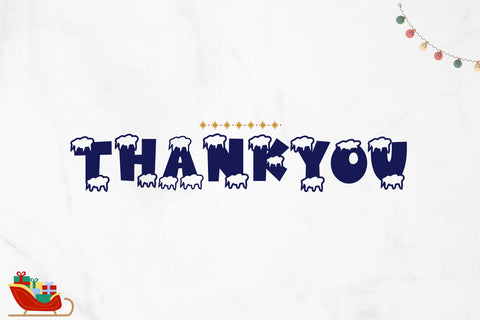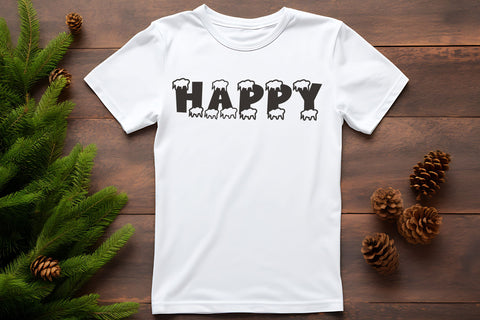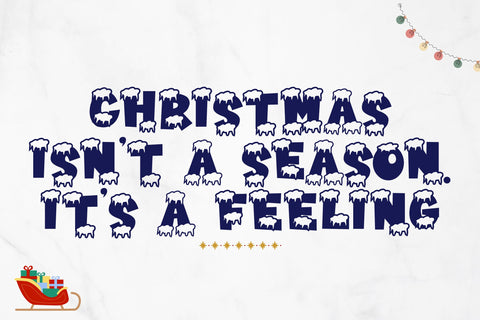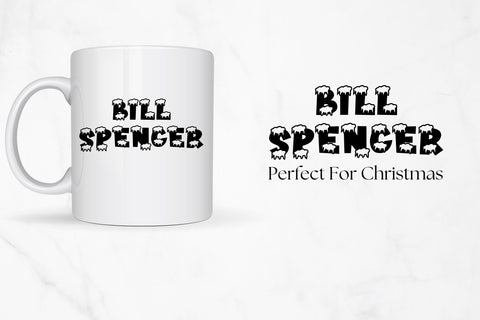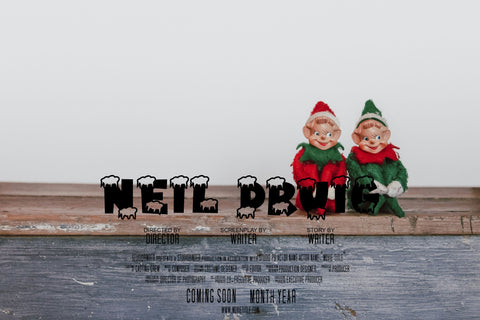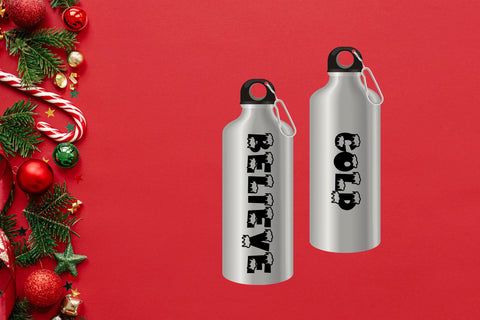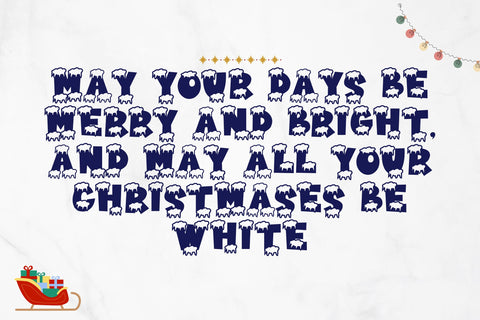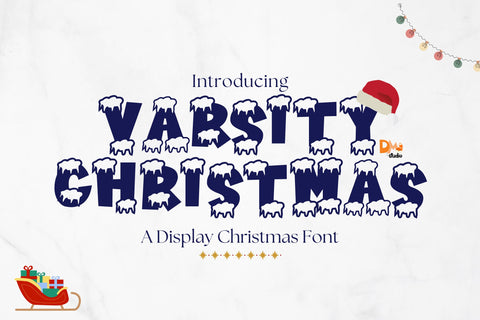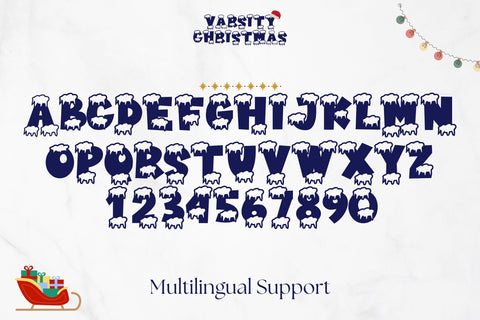
Varsity Christmas
Varsity Christmas – Festive & Playful Holiday Font
Varsity Christmas is a charming and festive display font that blends classic varsity-style lettering with a cheerful holiday twist. Perfect for Christmas cards, seasonal branding, holiday merchandise, posters, decorations, and festive typography, this font adds a touch of warmth and joy to any design.
- Festive Varsity-Inspired Design: A fun mix of bold lettering with holiday charm.
- Perfect for Holiday & Christmas-Themed Projects: Ideal for greeting cards, banners, gift packaging, and seasonal marketing.
- Versatile & Eye-Catching: Works great for headlines, social media posts, and decorative designs.
- Complete Character Set: Includes uppercase, lowercase, numbers, punctuation, and multilingual support.